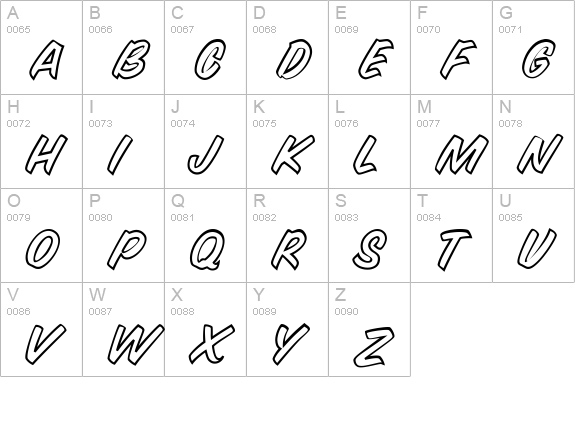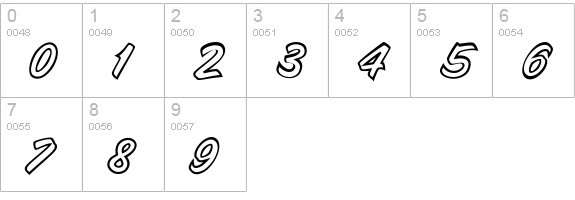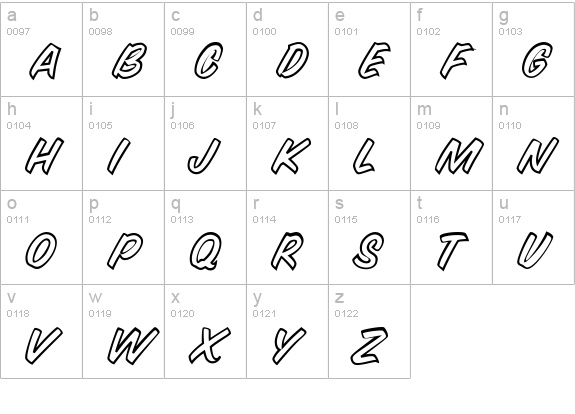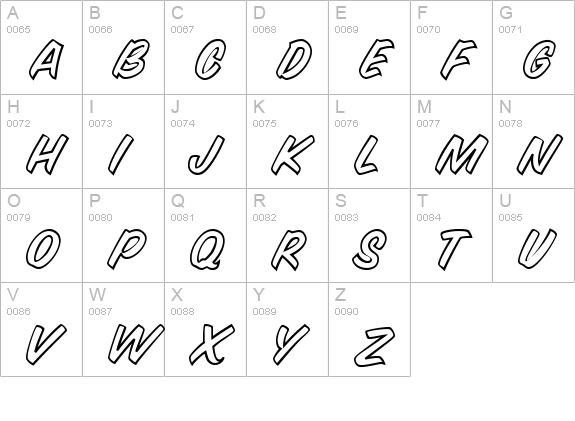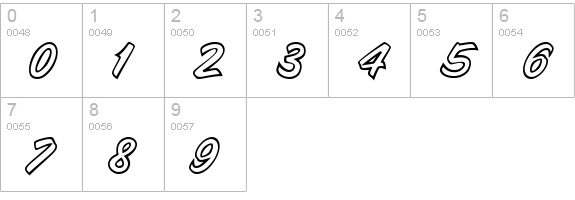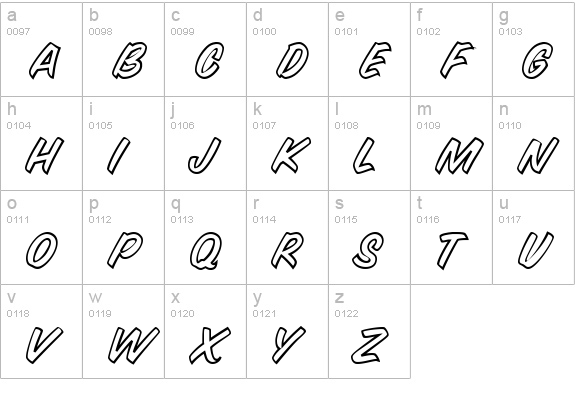
SnyderSpeed-Out Font Details
Introducing SnyderSpeed-Out, a striking and dynamic font that exudes energy and speed. This unique typeface is designed to captivate attention and make a bold statement in any project. Its sleek and modern letterforms are meticulously crafted to create a sense of motion and velocity, making it the perfect choice for sports-related designs, automotive branding, and high-energy advertising campaigns. With its sharp angles and sleek curves, SnyderSpeed-Out is a font that commands attention. Each character is meticulously designed to convey a sense of power and movement, while maintaining excellent legibility. Whether used in headlines, logos, or body text, this font is sure to leave a lasting impression on your audience. But what sets SnyderSpeed-Out apart from other fonts is its availability - it's completely free! That's right, this powerful and eye-catching typeface can be freely downloaded at FontsMarket.com. It's an incredible opportunity to add a professional and impactful touch to your designs without breaking the bank. So why wait? Head over to FontsMarket.com now and download SnyderSpeed-Out to elevate your next project to new heights. In conclusion, SnyderSpeed-Out is a visually stunning font that combines sleek design with a sense of energy and speed. With its free availability at FontsMarket.com, it's never been easier to add a touch of dynamism and professionalism to your designs. Don't miss out on this incredible opportunity - download SnyderSpeed-Out today and watch your projects come to life.